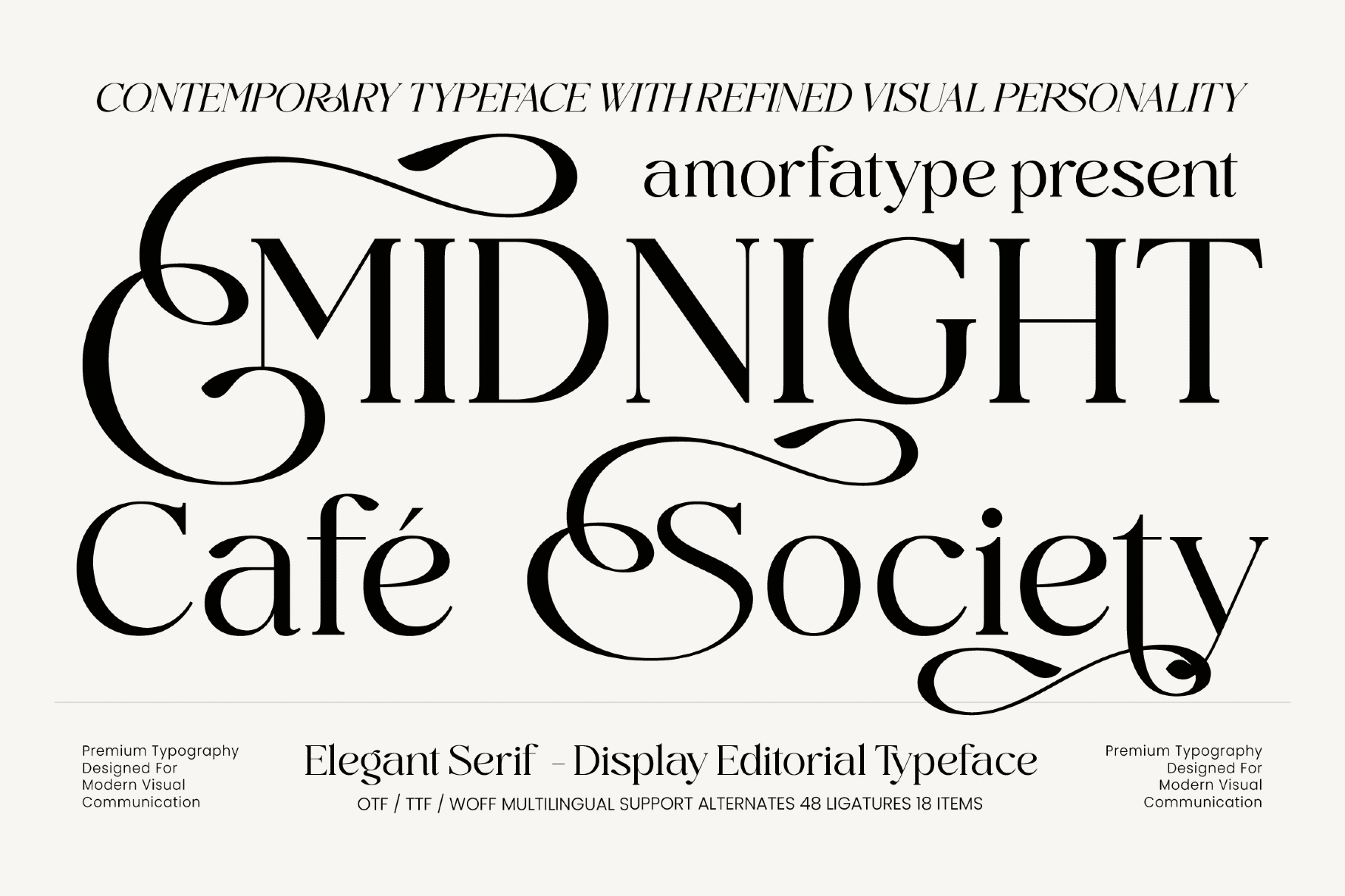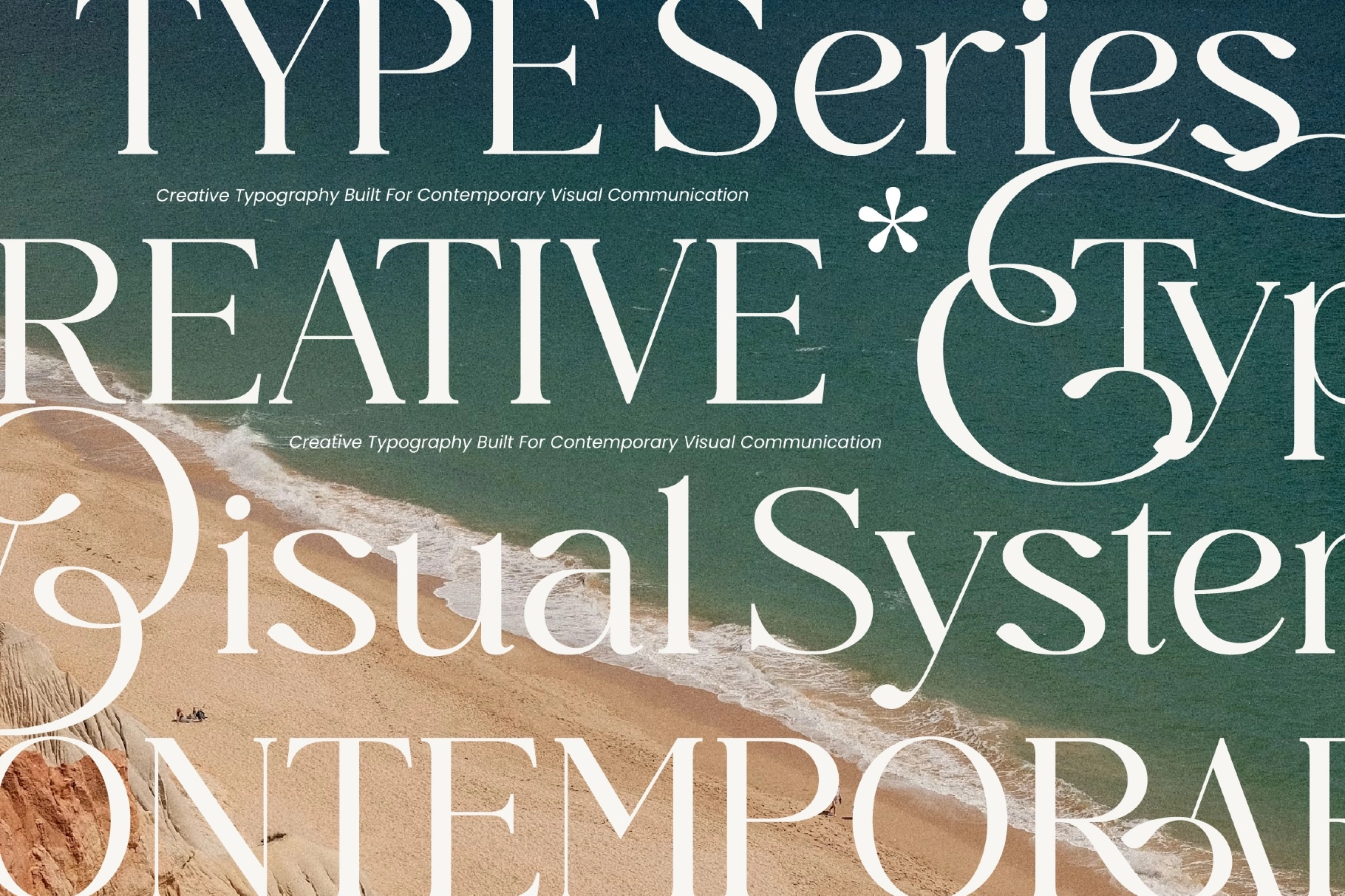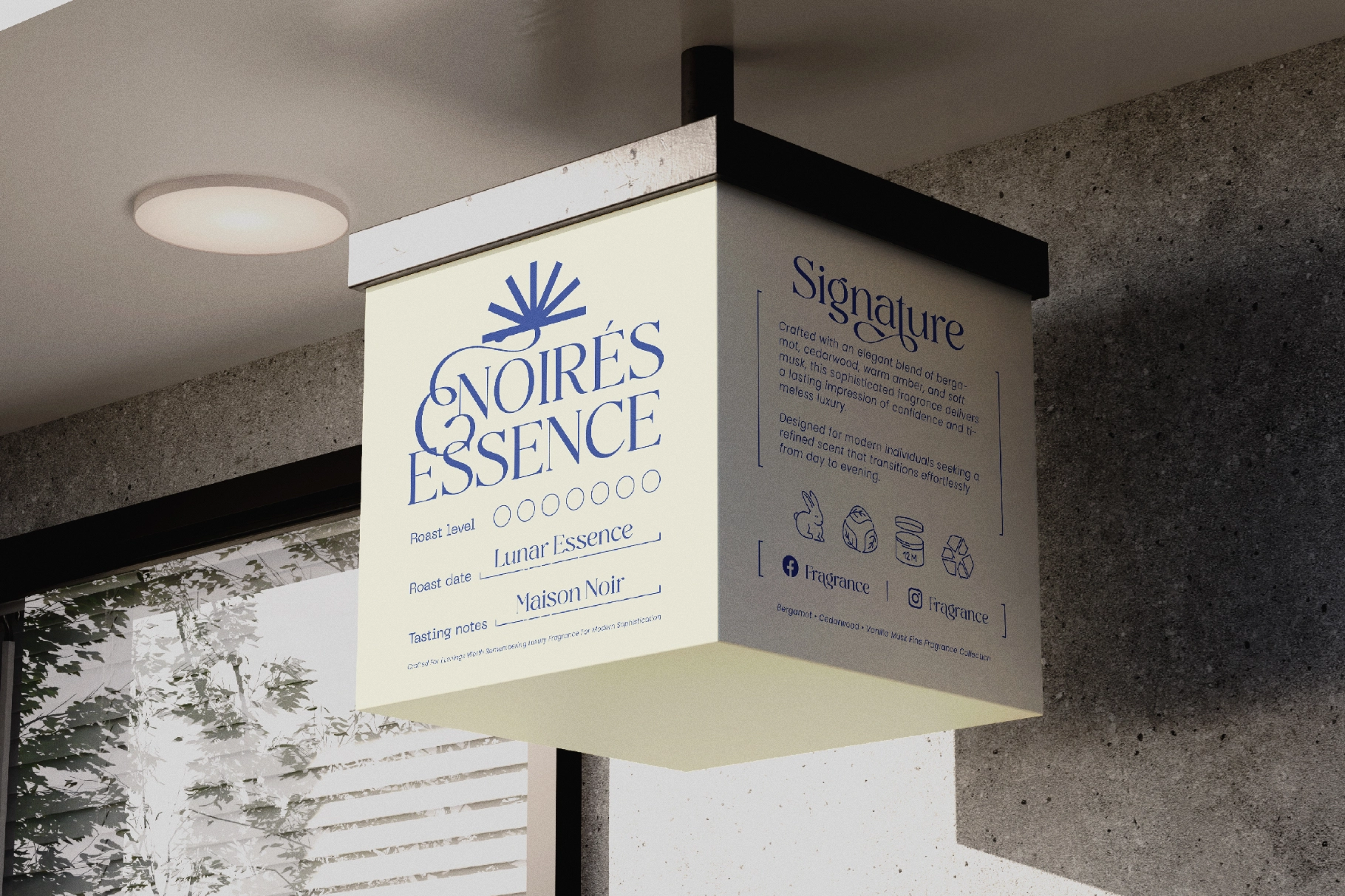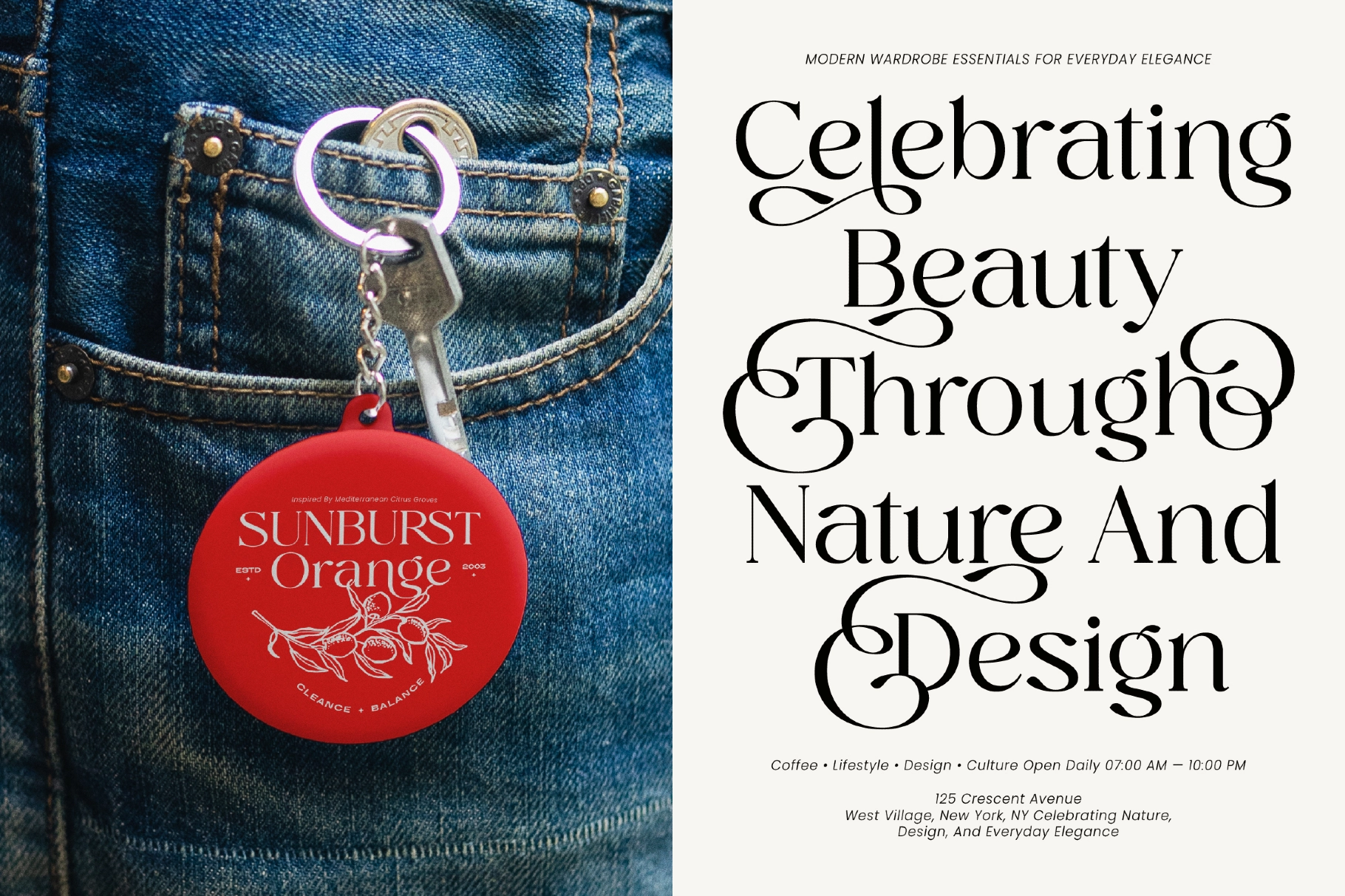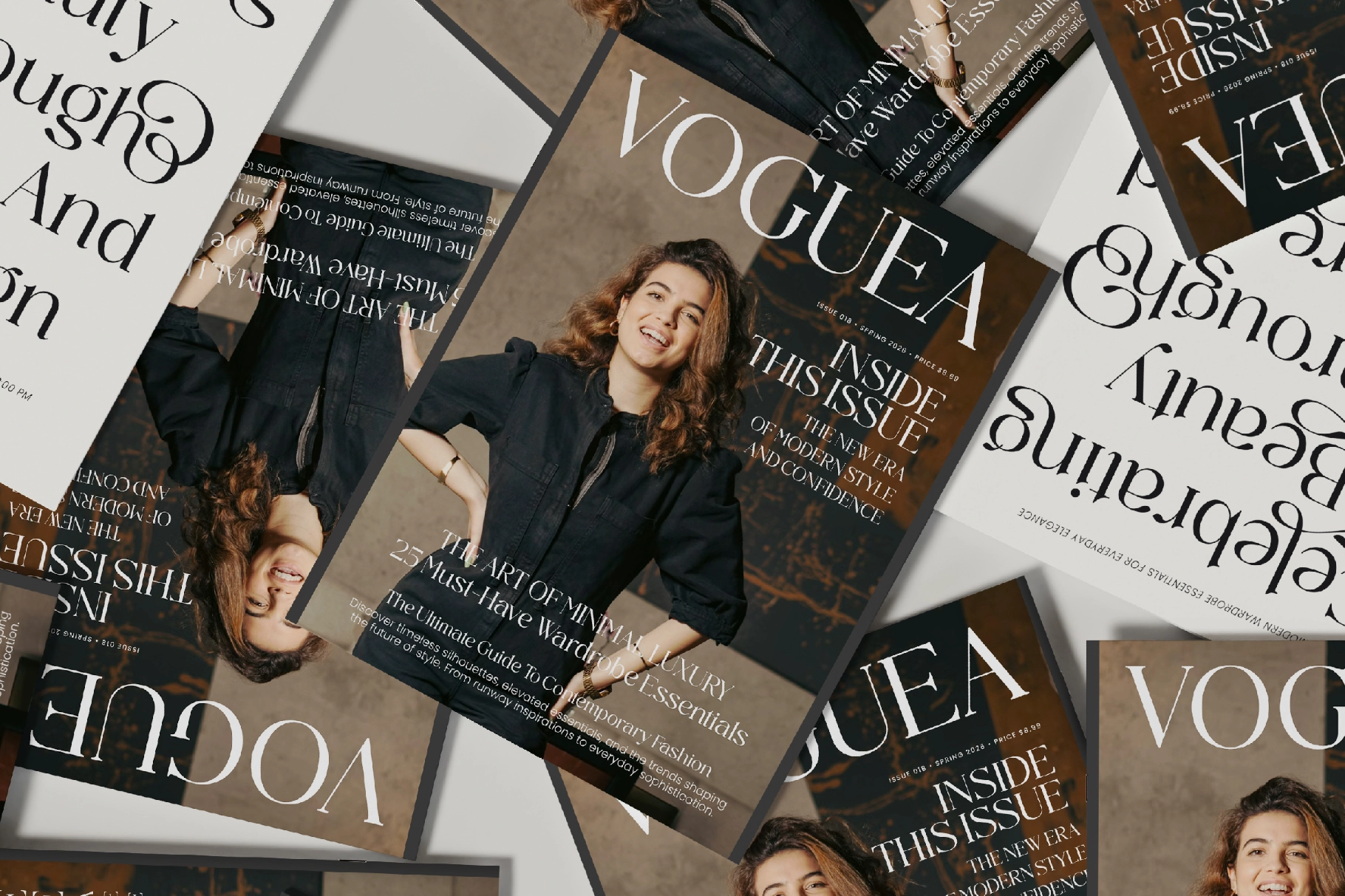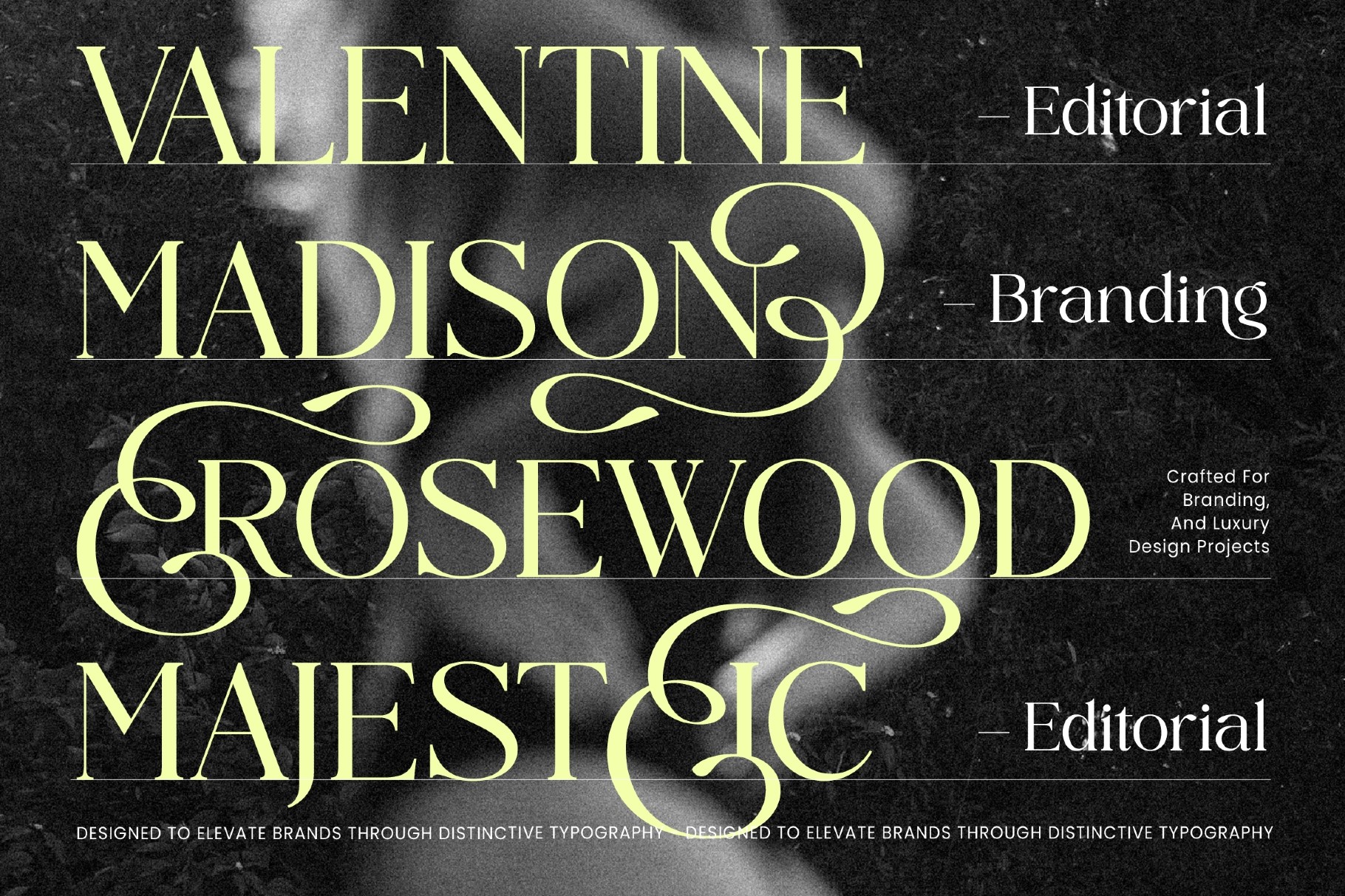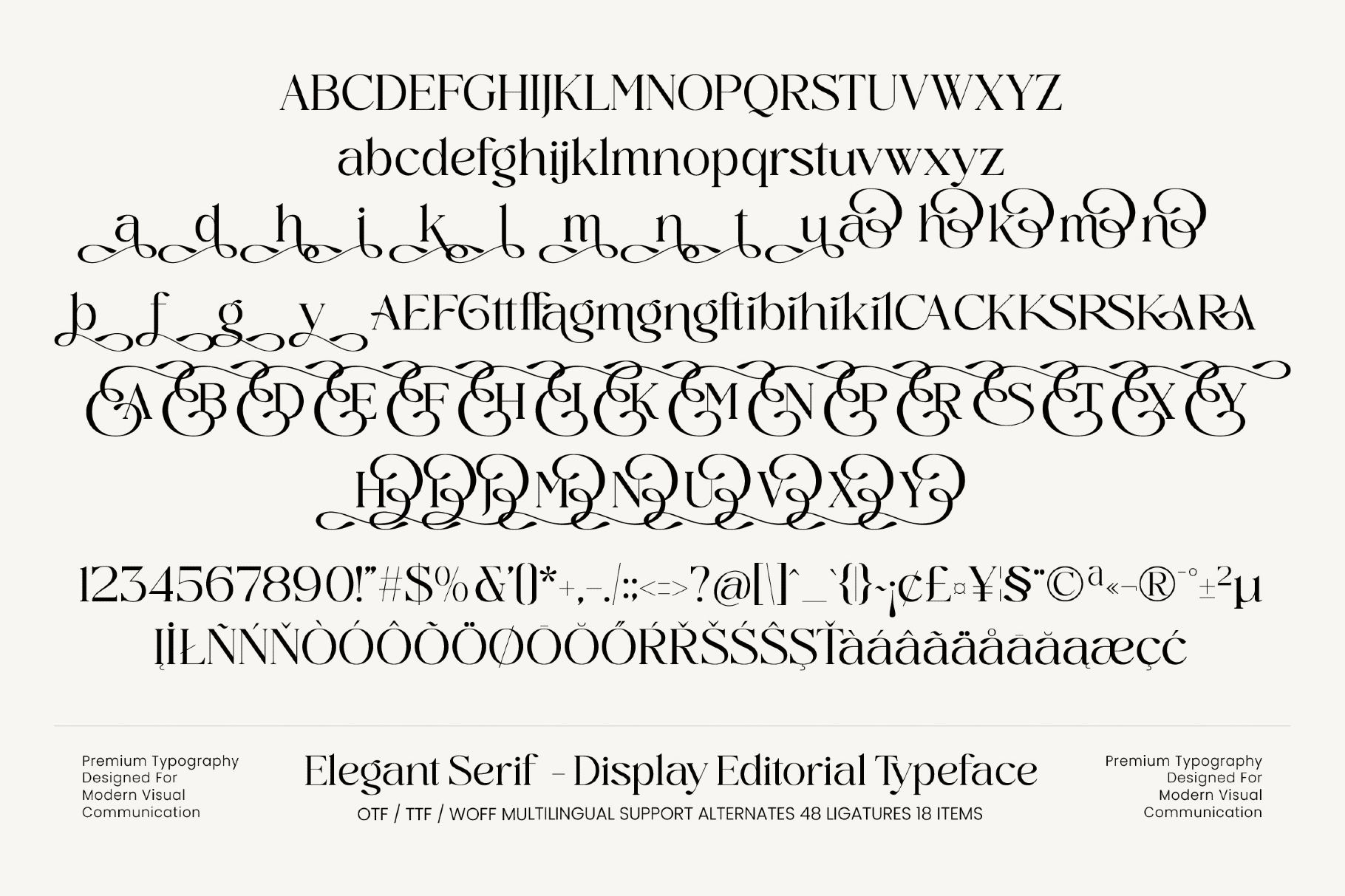
Midnight Cafe Society - Elegant Serif Font
This elegant serif font brings high-contrast letterforms, slender strokes, and ornamental swashes into a polished editorial voice. The style is refined without going stiff, with dramatic alternates and ligatures that give headlines a couture-level entrance — very calm, very expensive, probably has excellent lighting.
Midnight works beautifully for fashion editorials, beauty branding, boutique logos, wedding stationery, perfume packaging, magazine covers, cafe identities, lookbooks, social media quotes, luxury product labels, event invitations, and more. The generous alternate set gives designers room to create expressive wordmarks, graceful title compositions, and premium typographic systems with a distinct signature.
- 48 alternates
- 18 ligatures